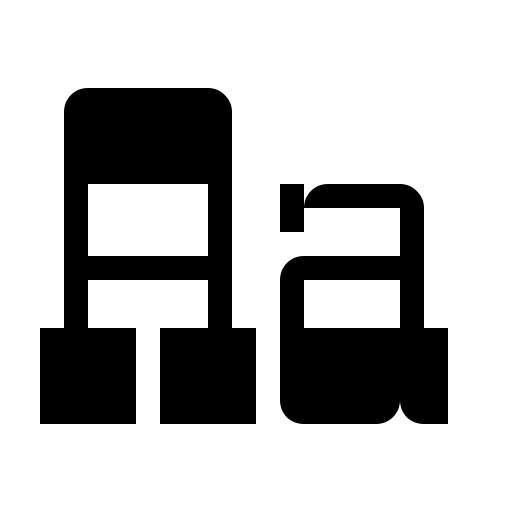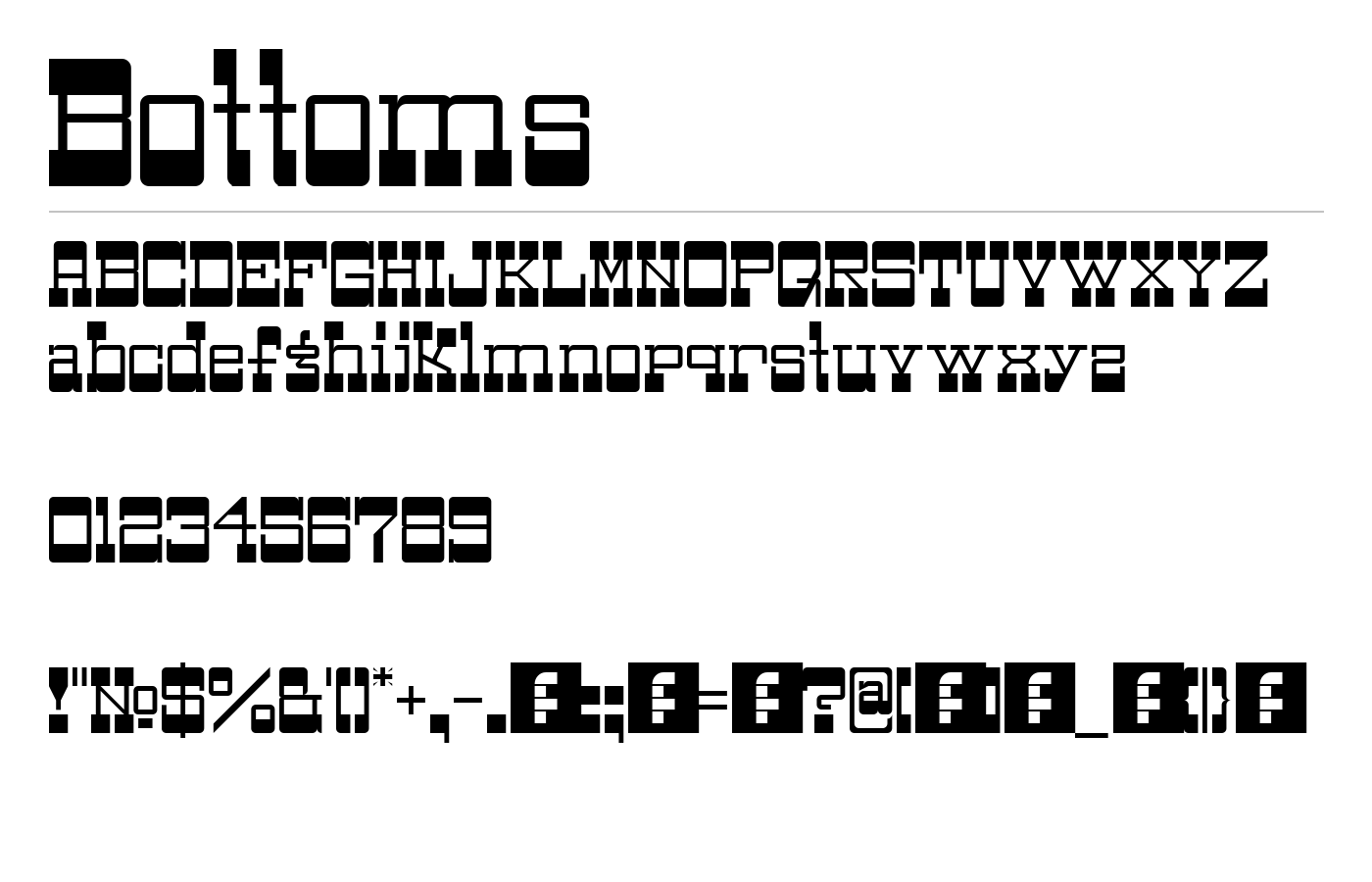
Bottoms Font is a distinctive slab serif typeface featuring bold, blocky letterforms with strong rectangular serifs that give it a mechanical and industrial feel. Its high contrast between thick and thin strokes combined with a condensed width makes it ideal for eye-catching headlines and display use where a modern, edgy, and somewhat technical aesthetic is desired. This font works well for branding, posters, and editorial projects seeking a robust, urban vibe with a touch of vintage machinery inspiration.
Bottoms Font
About Bottoms Font